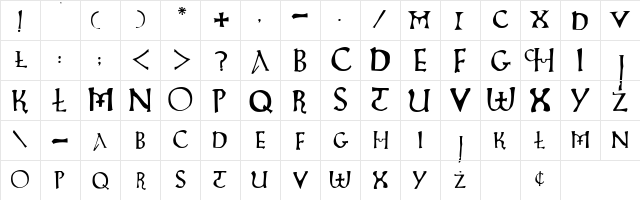
Oblok Regular
Design Context for Oblok
Oblok is a composed and adaptable typeface that performs quietly and consistently across a wide range of design contexts.